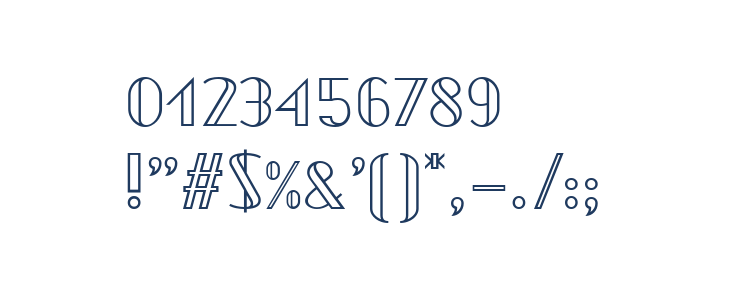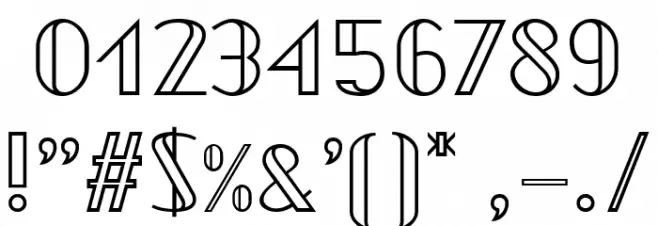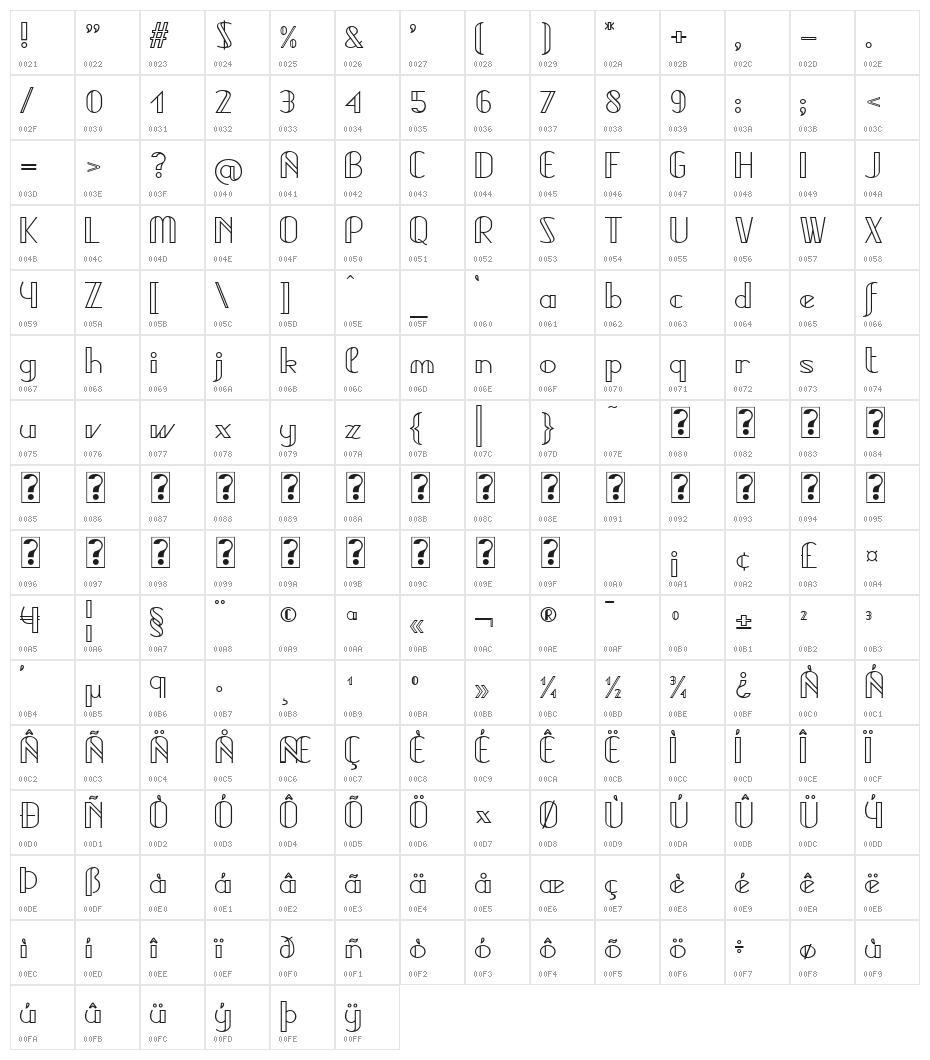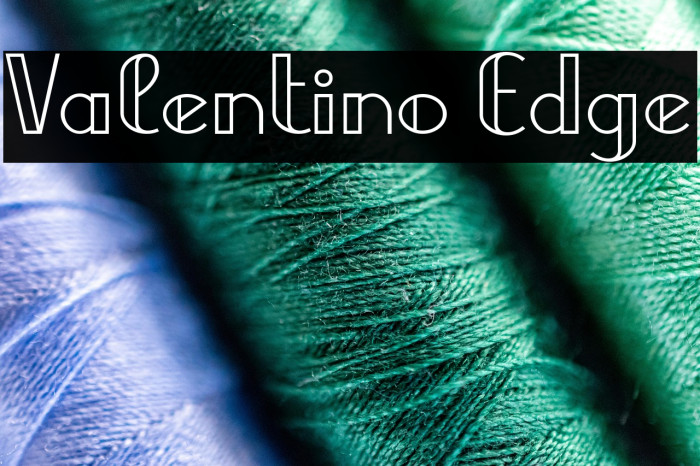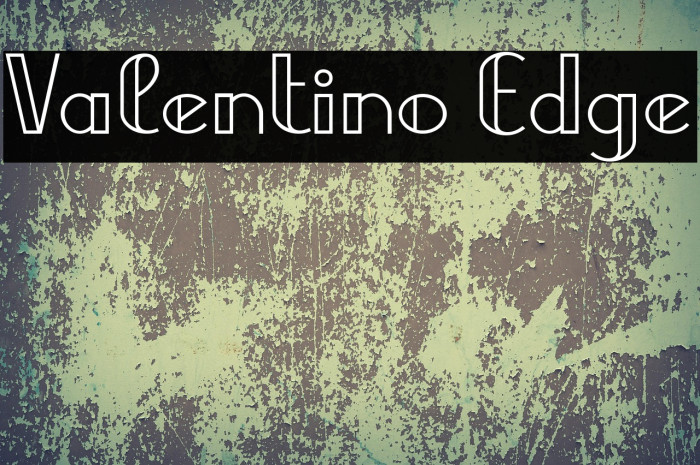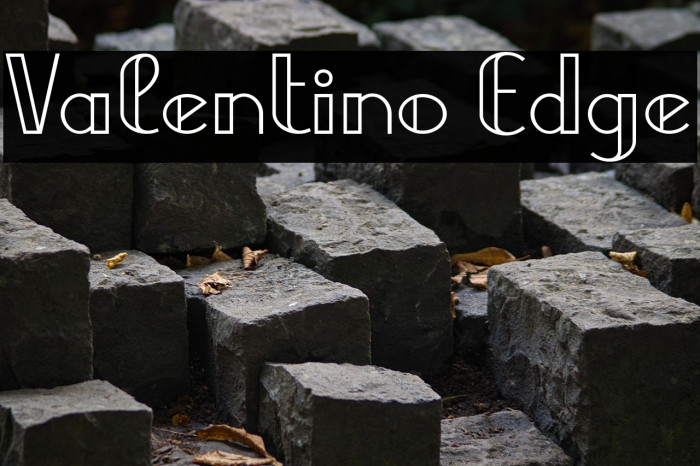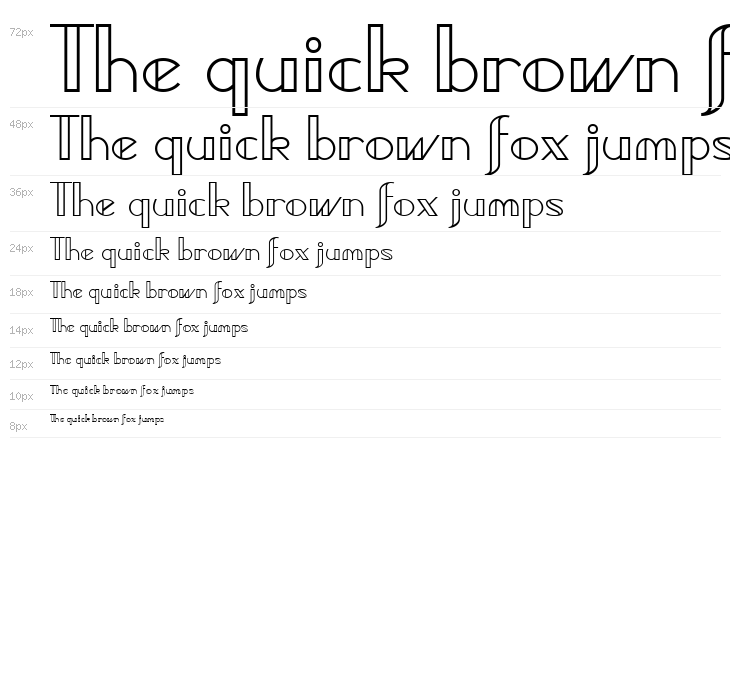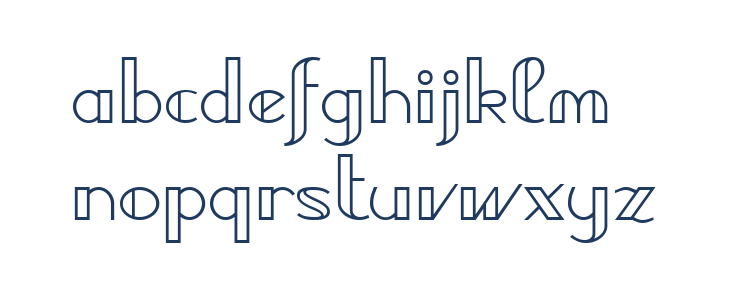
Valentino Edge Font
Valentino Edge Description
This font features a unique and modern design with a geometric and angular aesthetic. The uppercase letters are characterized by sharp edges and clean lines, creating a futuristic and sophisticated look. The lowercase letters maintain a similar style, with a slightly softer approach to enhance readability. The numerals are consistent with the overall design, offering a sleek and contemporary appearance. Special characters are thoughtfully integrated, maintaining the font's distinct style. This font is ideal for projects that require a bold and avant-garde visual impact.
| Proposed Projects | Ideal for branding, fashion magazines, luxury product packaging, and modern web design. |